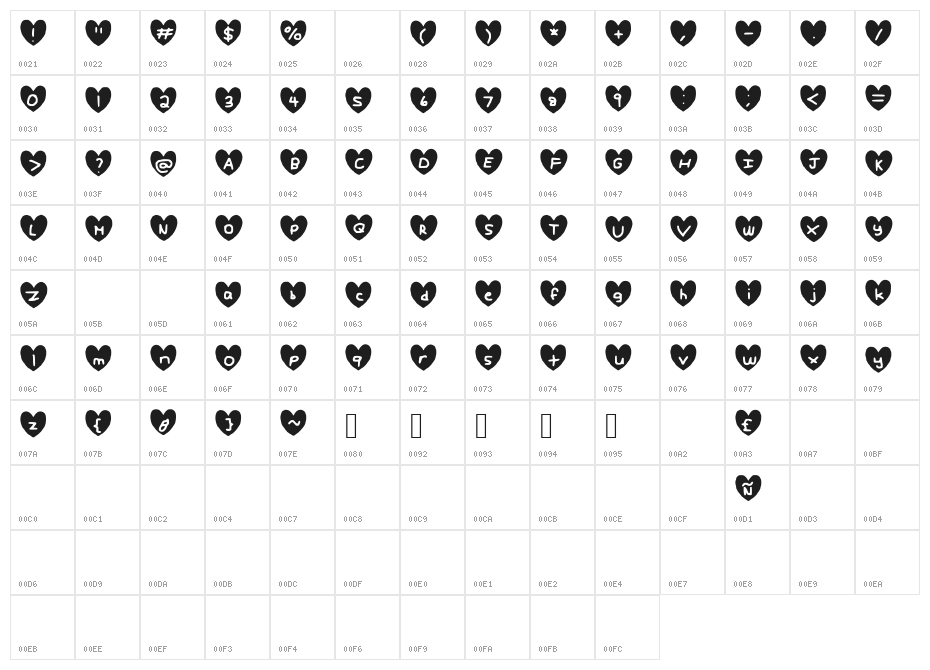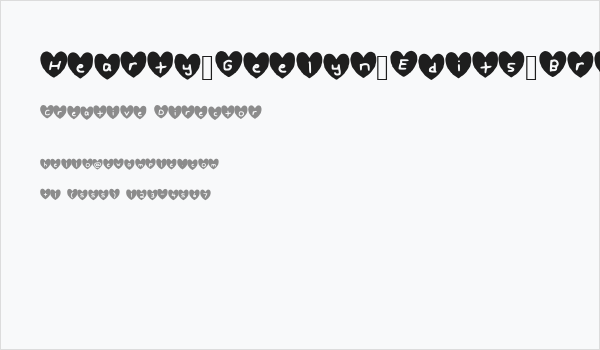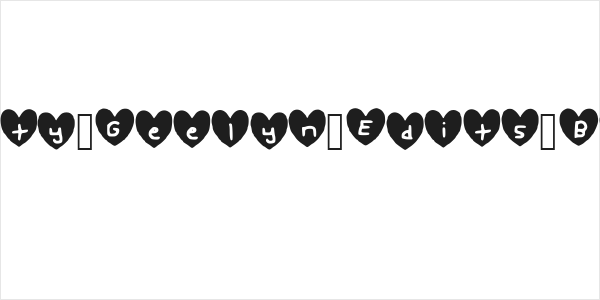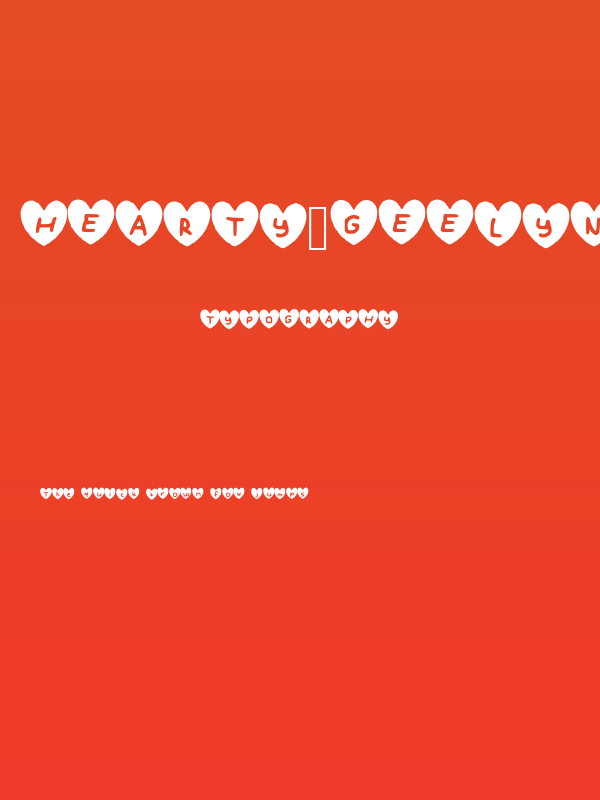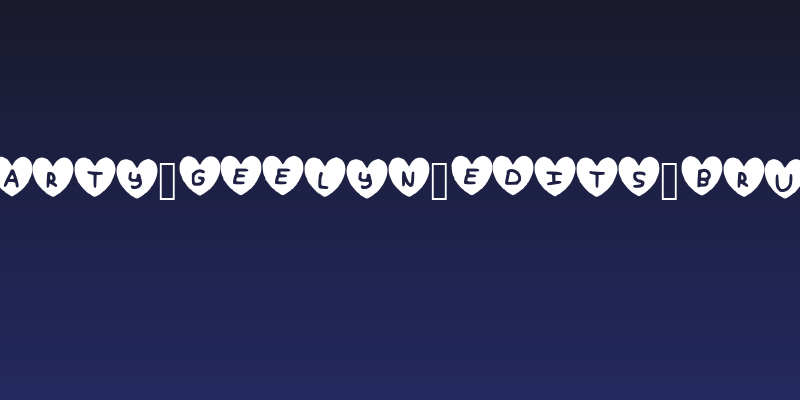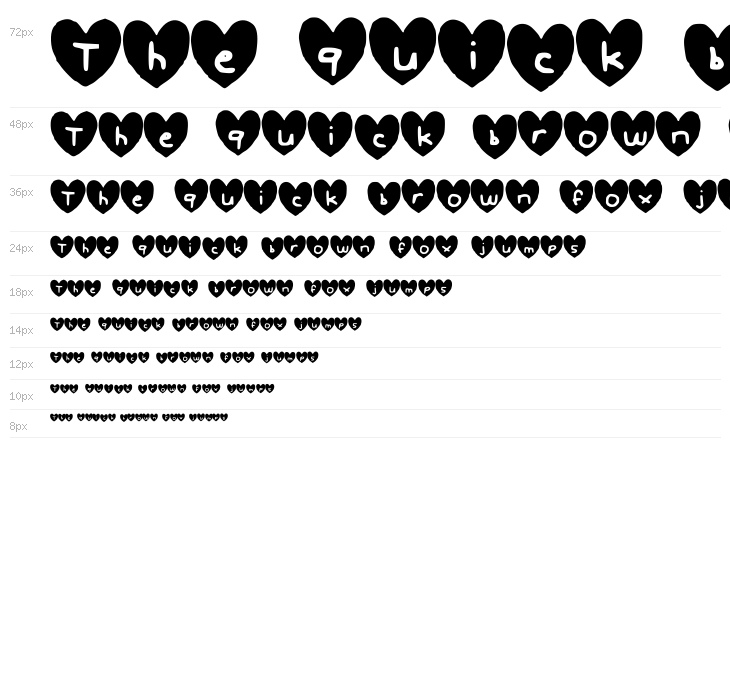
Hearty_Geelyn_Edits_Brush Font
Hearty_Geelyn_Edits_Brush Description
This playful and decorative font features each character enclosed within a heart shape, creating a whimsical and romantic aesthetic. The letters are handwritten with a casual, brush-like style, giving them a personal and informal feel. The uppercase and lowercase letters maintain a consistent style, with slight variations in stroke width that add to the charm. Numbers and special characters are also included, each fitting seamlessly into the heart motif. This font is perfect for projects that require a touch of fun and affection, such as greeting cards, wedding invitations, or playful branding.